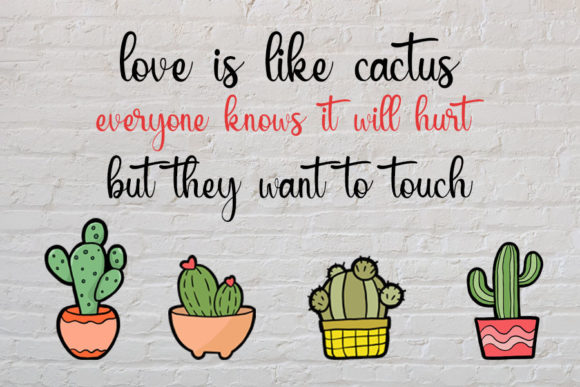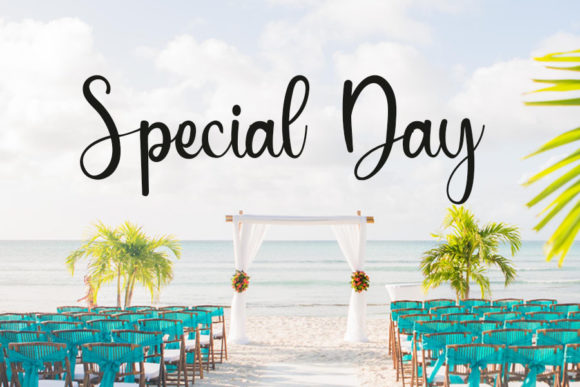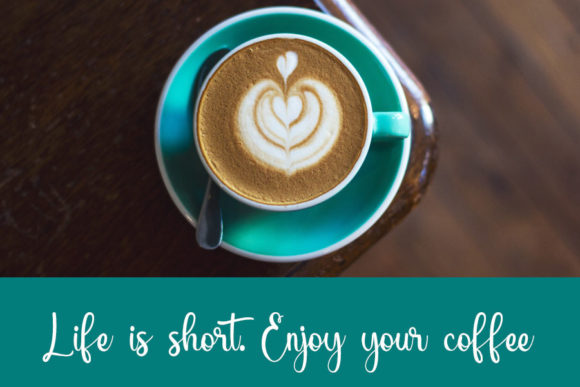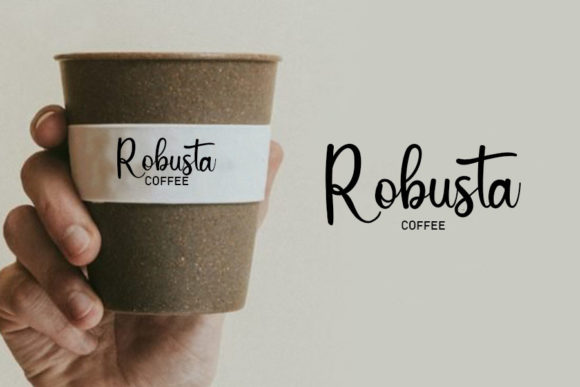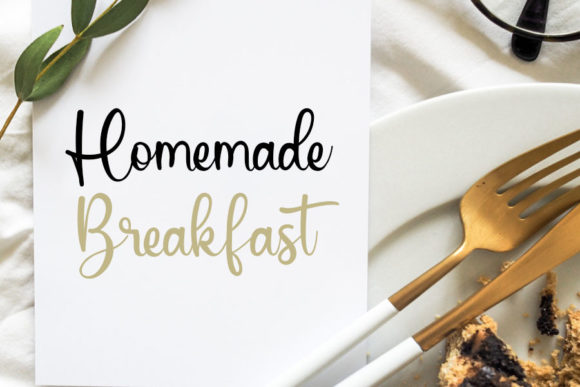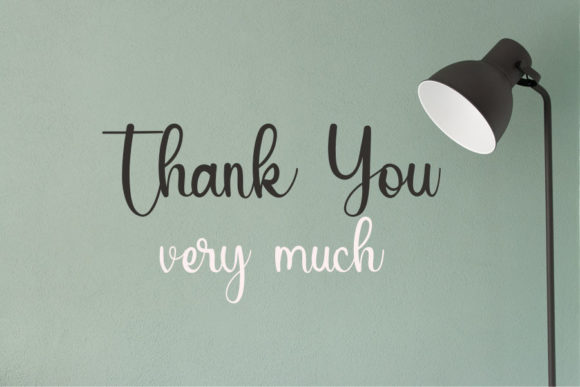
The Sweet Charm of Butterfly Font: A Designer’s Delight
I still remember the time I was working on a wedding invitation project, and my client asked for a font that was both elegant and playful. I scoured the internet, tried out countless fonts, but nothing seemed to fit the bill. That was until I stumbled upon Butterfly Font. Its romantic and sweet script style instantly won me over, and I knew I had found the perfect fit. In this article, I’ll share my experience with Butterfly Font, its features, and how to make the most of it in your designs.
A Personal Review of Butterfly Font
Butterfly Font is a beautiful, romantic script font that has become a staple in my design toolkit. Here’s what I love about it:
• ✨ Elegant and casual: Butterfly Font strikes the perfect balance between elegance and casualness, making it suitable for a wide range of projects.
• ✅ Versatile: From logos to wedding invitations, headings to t-shirts, this font can be used in various design projects.
• 💃 Dancing characters: The characters in Butterfly Font seem to dance along the baseline, adding a playful touch to your designs.
While Butterfly Font is an excellent choice, it’s not without its quirks:
• 🤔 Limited use in body text: Due to its script nature, Butterfly Font may not be the best choice for long blocks of body text.
• ⚠️ Ligatures: Some users may find the ligatures a bit tricky to work with, especially in certain design software.
Butterfly Font was designed with the intention of capturing the carefree and romantic spirit of a butterfly’s dance. Its creator aimed to craft a font that would evoke feelings of joy and playfulness, while still maintaining an air of elegance. The result is a beautiful script font that has captured the hearts of designers and crafters alike.
What type of projects is Butterfly Font best suited for? Butterfly Font is perfect for various projects such as logos, wedding invitations, headings, t-shirts, letterhead, signage, labels, news, posters, badges, and more.
Does Butterfly Font support OpenType features? Yes, Butterfly Font supports OpenType features, including ligatures and stylistic alternates, which can be accessed in compatible design software.